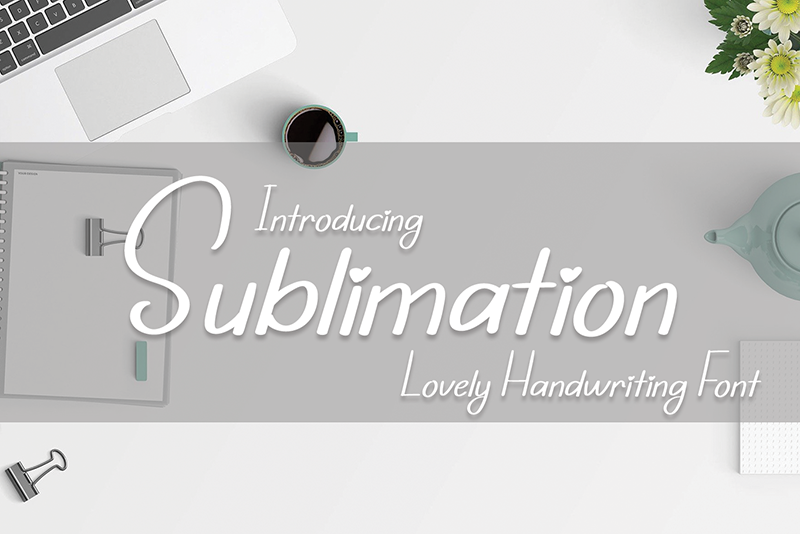
Preview and download Sublimation Font. Created by Erik Luluk in Script Various styles with Free for personal use license.
Font name: | Sublimation |
Sublimation is a unique and skinny handwritten font. Simple but with a strong visual effect, this font will instantly make your creations more appealing and interesting! Attention : Sublimation handwriting Font is prohibited to use this font for commercial purposes or for profit without the permission of the author/admin, without being known to use this font without permission, will be subject to sanctions 5x the specified price. This font is used only for demos (Demo license) If you want to use this font for commercial use please contact email: erikluluk0@gmail.com or click the link below: https://www.creativefabrica.com/product/sublimation-12/ref/745146/ If you want to see more other fonts, please click:https://www.creativefabrica.com/designer/erik-studio/ref/745146/ Any donations are very appreciated. Paypal account for donation: https://paypal.me/erikstudio1 thanks. |